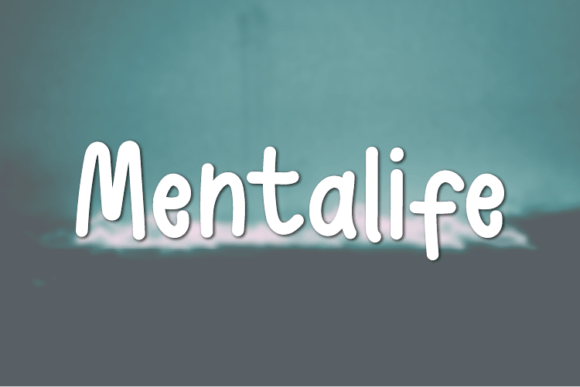
Prepare to dive into a world of effortless elegance with Mentalife Font, a script masterpiece created by Hanna Bie. This enchanting creation is not merely a font; it's a gateway to unleashing your inner creativity, adding a dash of charm to every word you write.
Mentalife Font: Where Beauty Meets Simplicity
Mentalife Font is a natural and casual handwritten font, carefully crafted to bring a sense of authenticity to your digital creations. Its fluid strokes and subtle imperfections evoke the beauty of penmanship, creating a personal and inviting ambiance.
Handcrafted with precision, Mentalife Font boasts a comprehensive character set, including uppercase and lowercase letters, numbers, and an array of punctuation marks. Its multilingual support makes it a versatile choice for projects in various languages.
Unlock the Endless Possibilities
Mentalife Font excels in a wide range of applications, making it an indispensable asset for both personal and professional projects. Whether you're a student crafting beautiful study notes or a designer seeking to add a touch of elegance to your invitations and branding materials, this font is your perfect companion.
With Mentalife Font, you can effortlessly transform your social media posts, blog articles, and digital presentations into visually captivating masterpieces. Its charming handwritten style is guaranteed to grab attention and leave a lasting impression on your audience.
A Treasure Trove of Creativity
Mentalife Font is more than just a collection of letters; it's an open invitation to explore your creativity. Its versatility allows you to experiment with different design styles, from delicate and whimsical to bold and expressive. Unleash your imagination and let your words dance with grace across the digital canvas.
Join the Creative Revolution
Thousands of satisfied customers have already discovered the magic of Mentalife Font. They've used it to create stunning logos, eye-catching social media graphics, and heartfelt personal messages. Become a part of this creative community and let your projects shine with a touch of sophistication.
Elevate Your Creations with Mentalife Font
Immerse yourself in the world of Mentalife Font and experience the joy of effortless creativity. Let your words flow with grace and elegance, captivating your audience with every stroke. Download Mentalife Font today and embark on a journey of artistic expression that will leave you inspired and amazed.